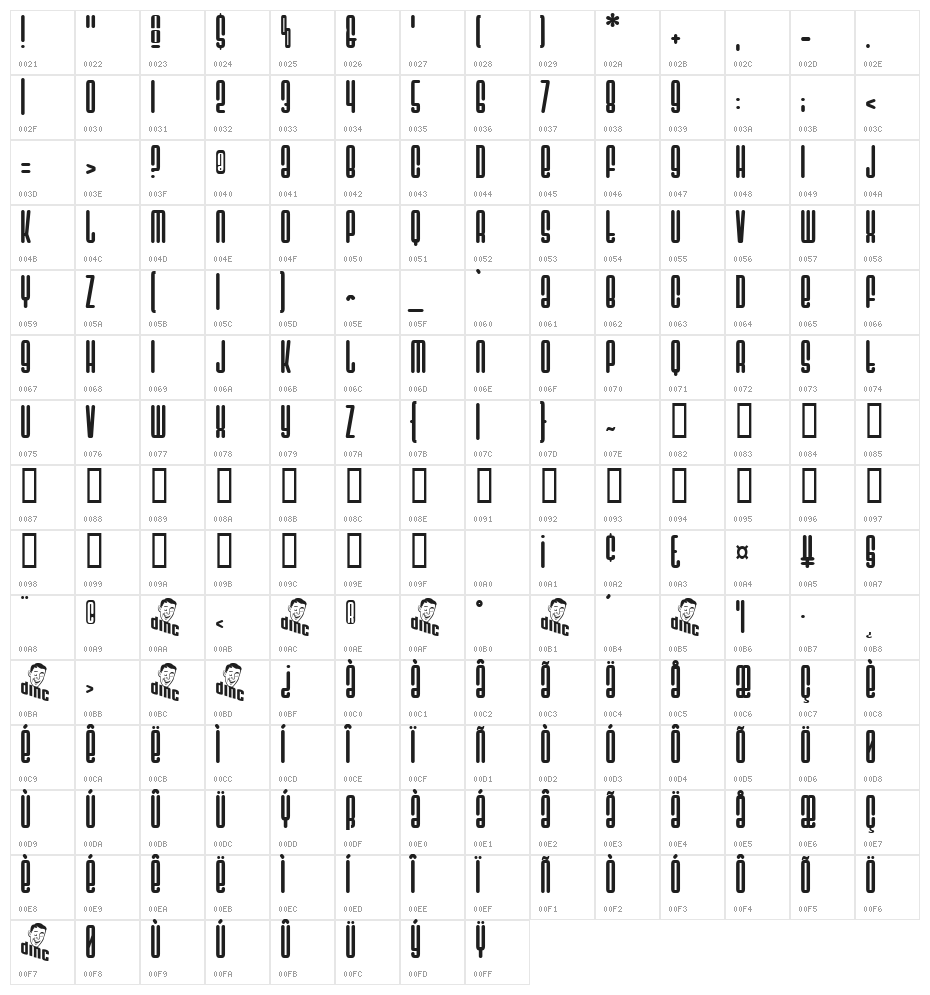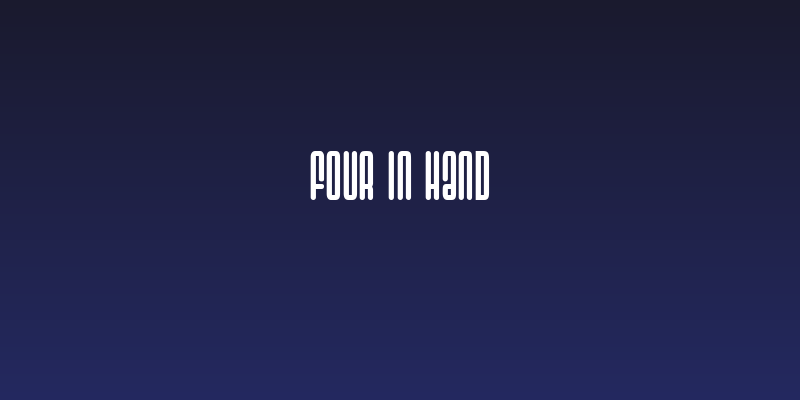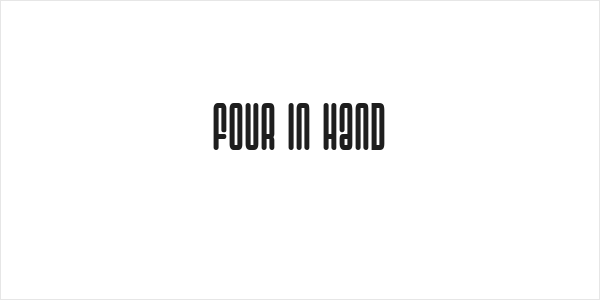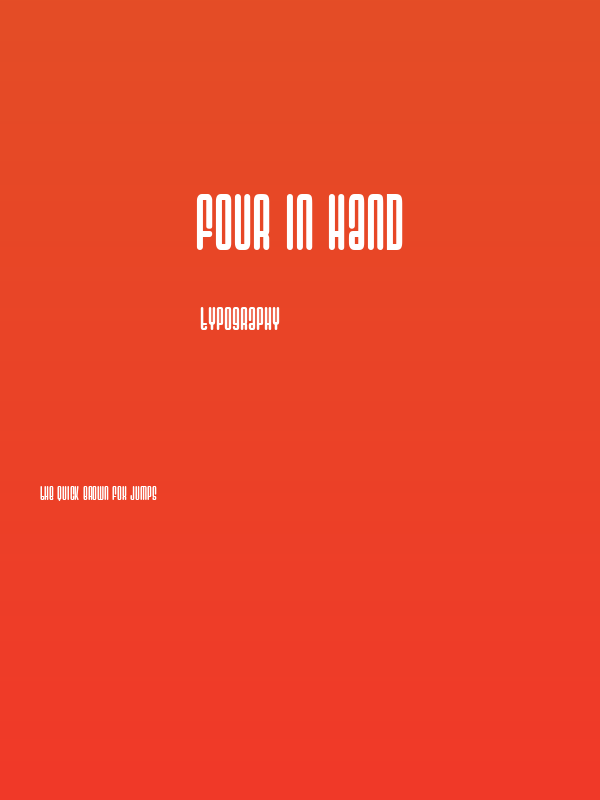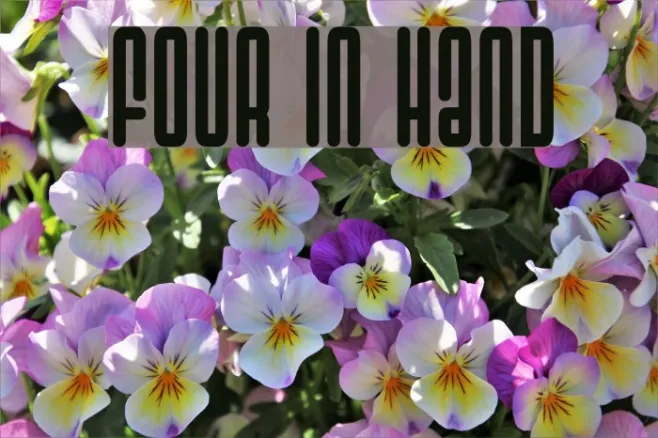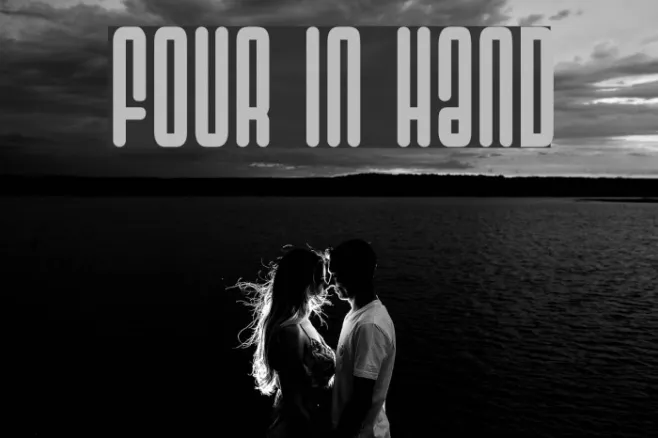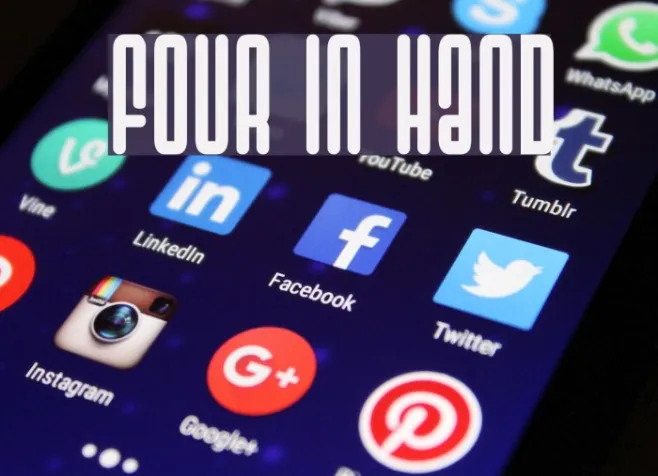
Four In Hand Font
Four In Hand Description
This font features a bold and modern design with a distinctive geometric style. The characters are tall and narrow, with rounded edges that give a smooth and contemporary appearance. The uppercase and lowercase letters maintain a consistent height, creating a uniform look across the alphabet. The numbers and special characters follow the same design principles, ensuring a cohesive visual identity. The font's clean lines and unique structure make it stand out, while its readability remains intact despite the condensed form.